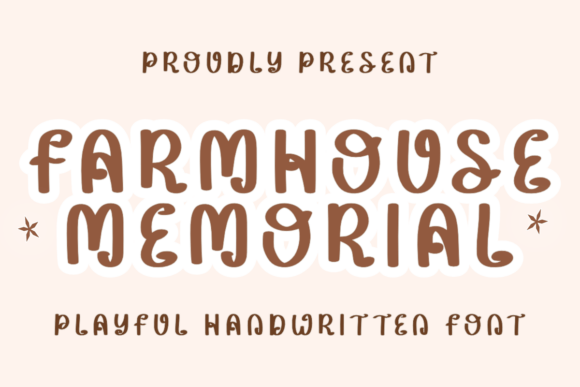
Introducing Farmhouse Memorial Font: The Perfect Handwriting Font for Creative Moms
Are you a creative mom who loves DIY projects, journaling, and crafting with your Cricut machine? Look no further! We’re excited to introduce the Farmhouse Memorial Font, a cute and playful handwriting font that’s perfect for planners, stickers, cards, quotes, and craft projects. In this article, we’ll dive into the features and benefits of this beautiful font and explore how it can elevate your creative projects.
What is Farmhouse Memorial Font?
Farmhouse Memorial Font is a handwriting font that’s designed to add a personal touch to your projects. Its playful and whimsical style makes it perfect for creative moms who want to add a touch of warmth and personality to their crafts. The font is highly legible and versatile, making it suitable for a wide range of projects, from planners and journals to stickers and cards.
Benefits of Using Farmhouse Memorial Font
- Perfect for DIY projects: Farmhouse Memorial Font is designed to help you add a personal touch to your DIY projects. Whether you’re creating planners, stickers, or cards, this font is sure to make your projects stand out.
- Ideal for journaling: If you love journaling, you’ll adore Farmhouse Memorial Font. Its playful style makes it perfect for adding quotes, headings, and titles to your journal pages.
- Great for Cricut crafts: If you’re a Cricut enthusiast, you’ll love working with Farmhouse Memorial Font. The font is highly compatible with Cricut machines, making it easy to cut out letters and words for your crafts.
- Cute and playful: Farmhouse Memorial Font is a cute and playful font that’s sure to add a touch of whimsy to your projects.
Uses for Farmhouse Memorial Font
Farmhouse Memorial Font is a versatile font that can be used for a wide range of projects. Here are some ideas to get you started:
- Planners: Use Farmhouse Memorial Font to add headings, titles, and quotes to your planners.
- Stickers: Create custom stickers with Farmhouse Memorial Font for your journal or planner.
- Cards: Add a personal touch to your greeting cards with Farmhouse Memorial Font.
- Quotes: Use Farmhouse Memorial Font to create inspiring quotes for your social media channels or blog.
- Craft projects: Farmhouse Memorial Font is perfect for craft projects, such as scrapbooking, card making, and DIY decor.
Tips and Tricks for Using Farmhouse Memorial Font
Here are some tips and tricks for getting the most out of Farmhouse Memorial Font:
- Experiment with colors: Farmhouse Memorial Font looks great in a variety of colors. Experiment with different colors to find the one that works best for your project.
- Mix and match: Don’t be afraid to mix and match Farmhouse Memorial Font with other fonts to create a unique look.
- Use it for headings: Farmhouse Memorial Font is perfect for headings and titles. Use it to add a touch of personality to your projects.
- Make it digital: Use Farmhouse Memorial Font to create digital projects, such as printable art or social media graphics.
Farmhouse Memorial Font is a beautiful and versatile handwriting font that’s perfect for creative moms who love DIY projects, journaling, and crafting with their Cricut machine. With its playful and whimsical style, this font is sure to add a touch of personality to your projects. Whether you’re creating planners, stickers, cards, or quotes, Farmhouse Memorial Font is the perfect choice.